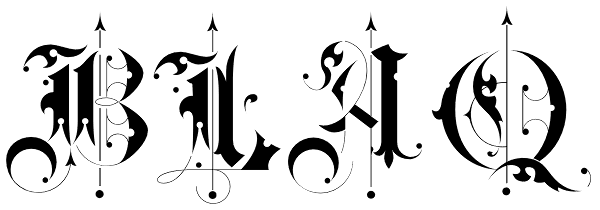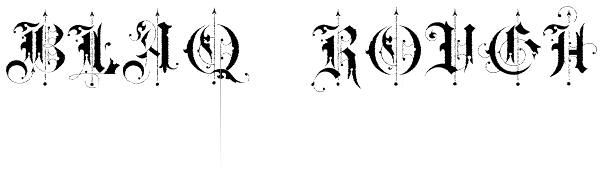
Blaq
Inspired by Henry W. Troy, BLAQ is a new version of Trojan Text not available as font. Is an ornamental blackletter alphabet. Works great in headlines and other 'masculine' like design settings. The Victorian Gothic or Neo-Gothic is an architectural...
Blaq
BLAQ Rough